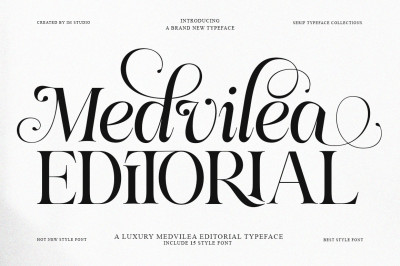
Medvilea Editorial | 15 Style Font
Medvilea Editorial | 15 Style combines clean construction with expressive detail, making it a dependable asset in any type toolkit.